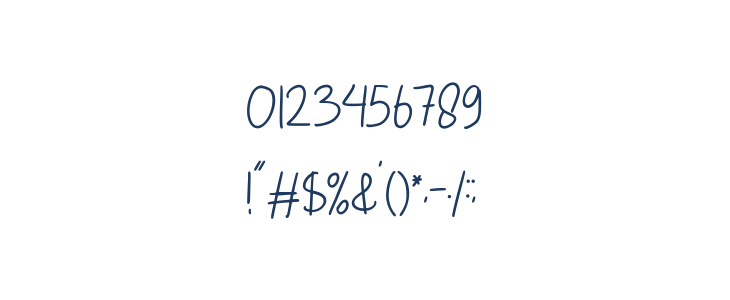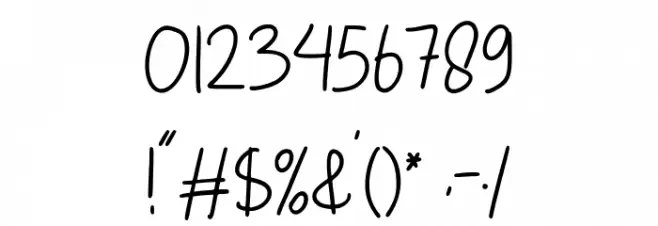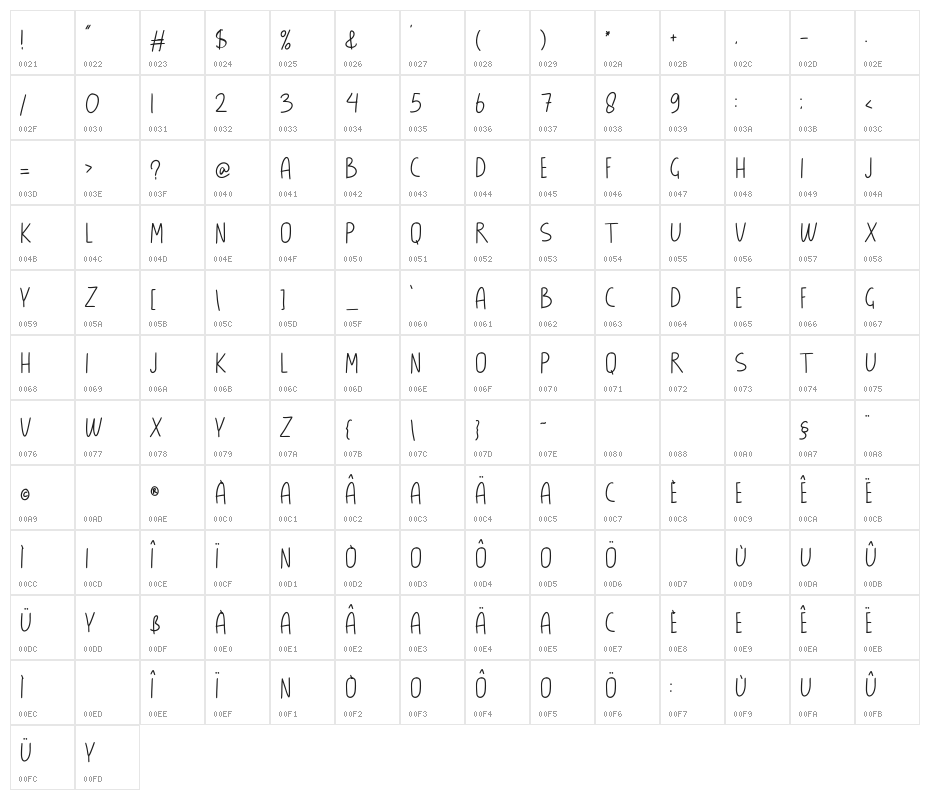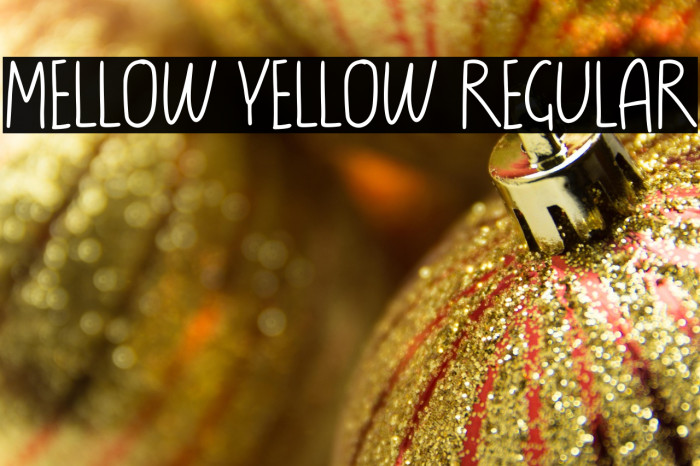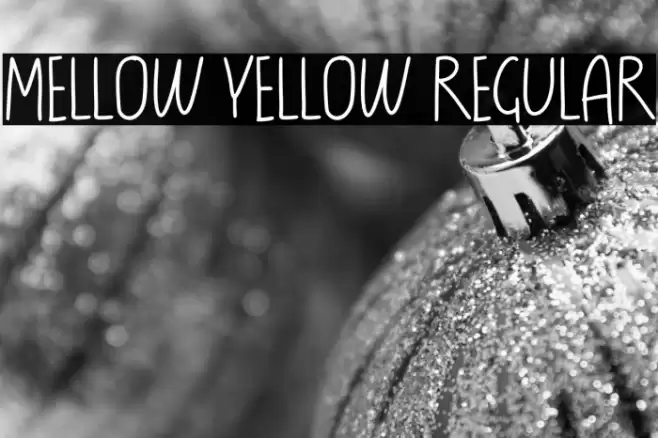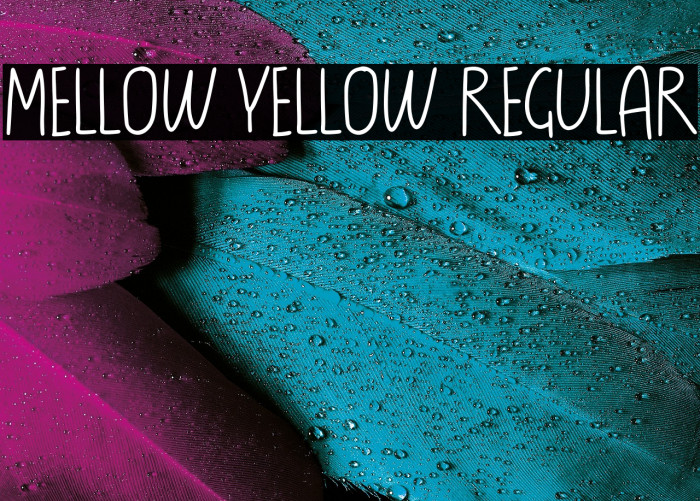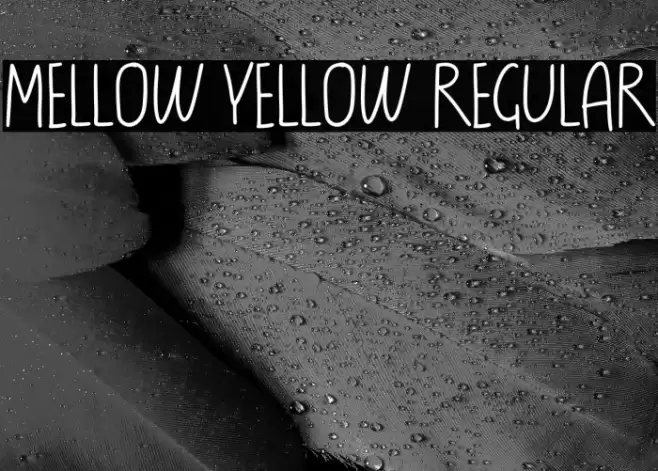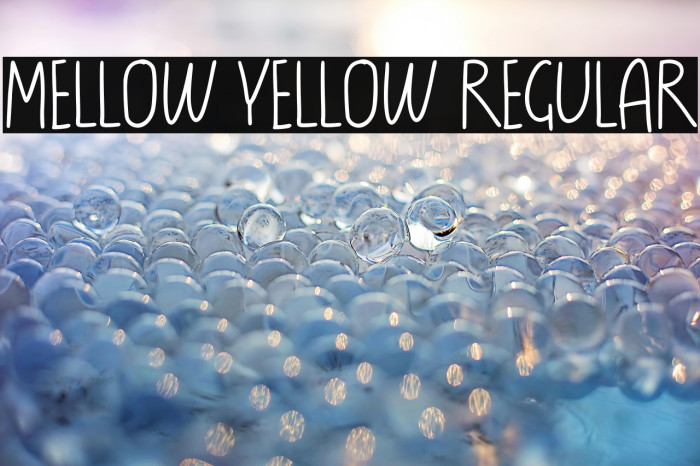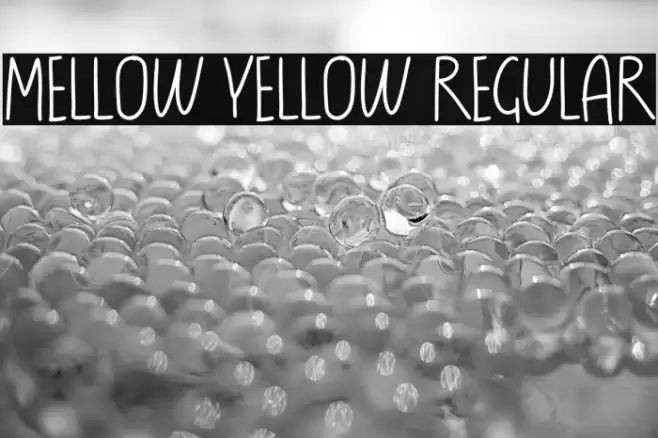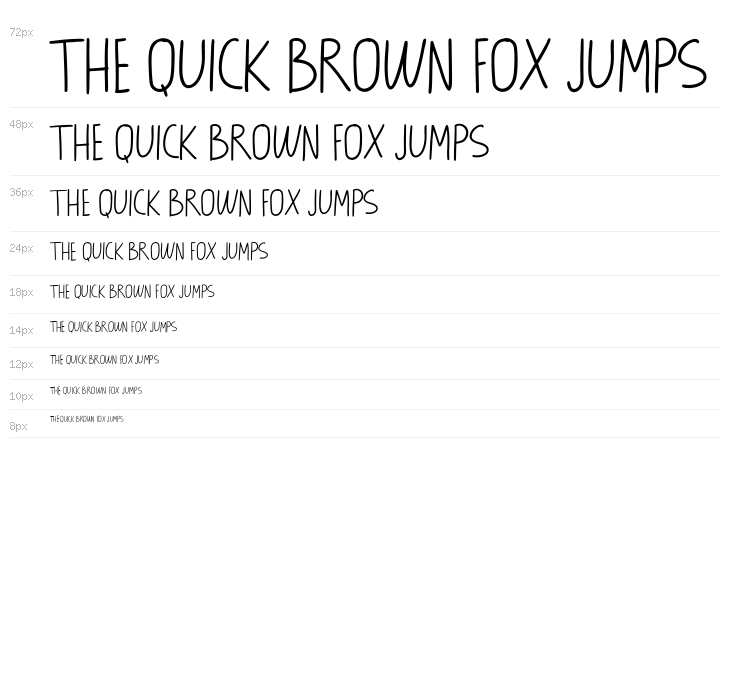
Mellow Yellow Regular Font
Mellow Yellow Regular Description
This font features a playful and casual handwritten style, characterized by its smooth, flowing lines and slightly irregular shapes. The letters are tall and narrow, giving it a unique and friendly appearance. The strokes are consistent in width, providing a clean and modern look. The font includes both uppercase and lowercase letters, numbers, and a variety of special characters, making it versatile for various design needs. Its informal yet legible style makes it suitable for projects that require a personal touch.
| Proposed Projects | Ideal for greeting cards, invitations, personal branding, and casual blog headers. |